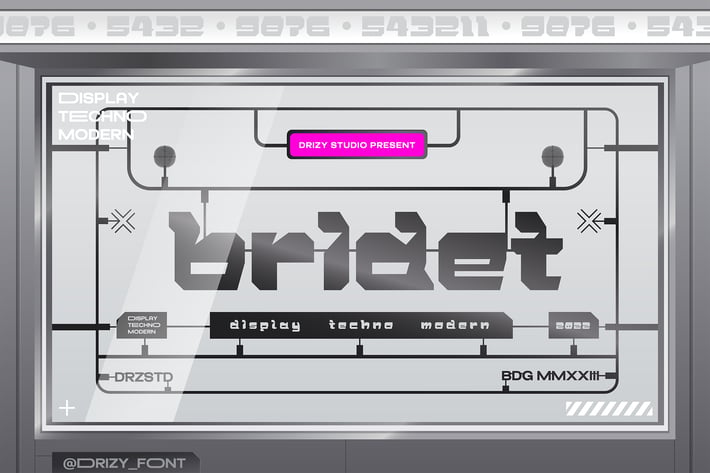
Bridet - Modern Techno Font
Bridet is a Modern Techno Font from Drizy studio. Offering all the basic styles you will need especially modern theme project.
Bridet Features:
Multilinguals
Ligatures
Alternates